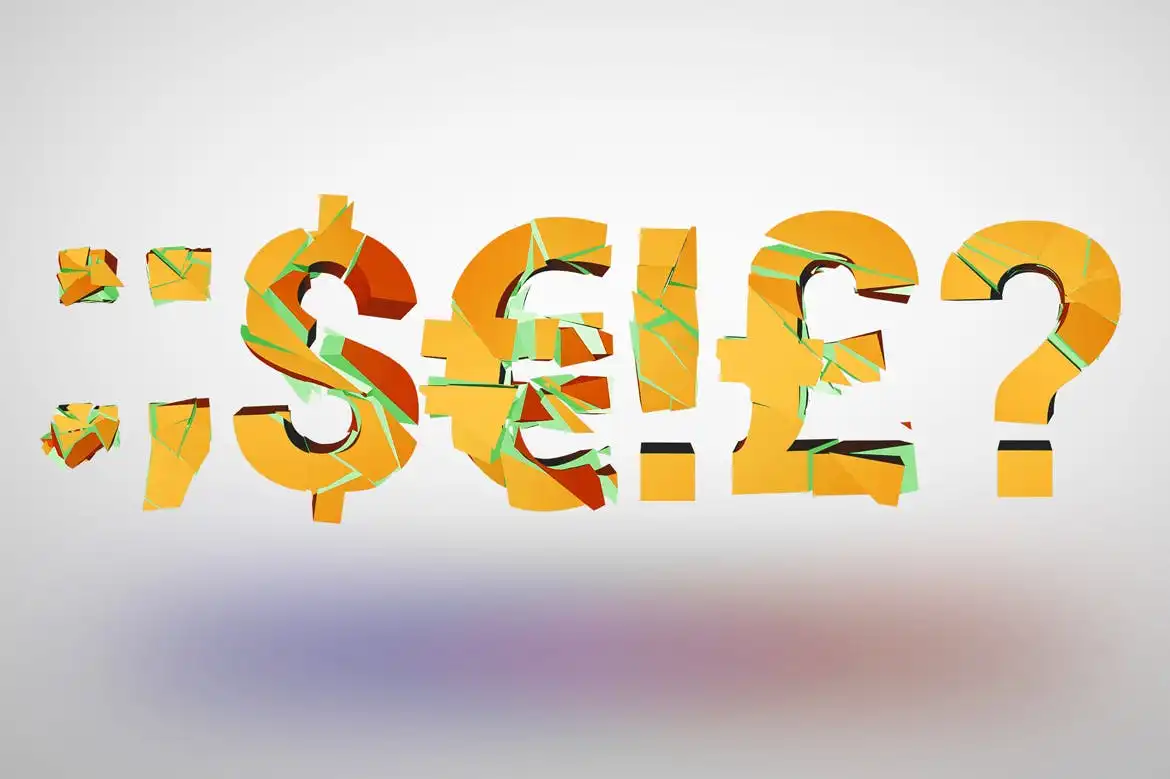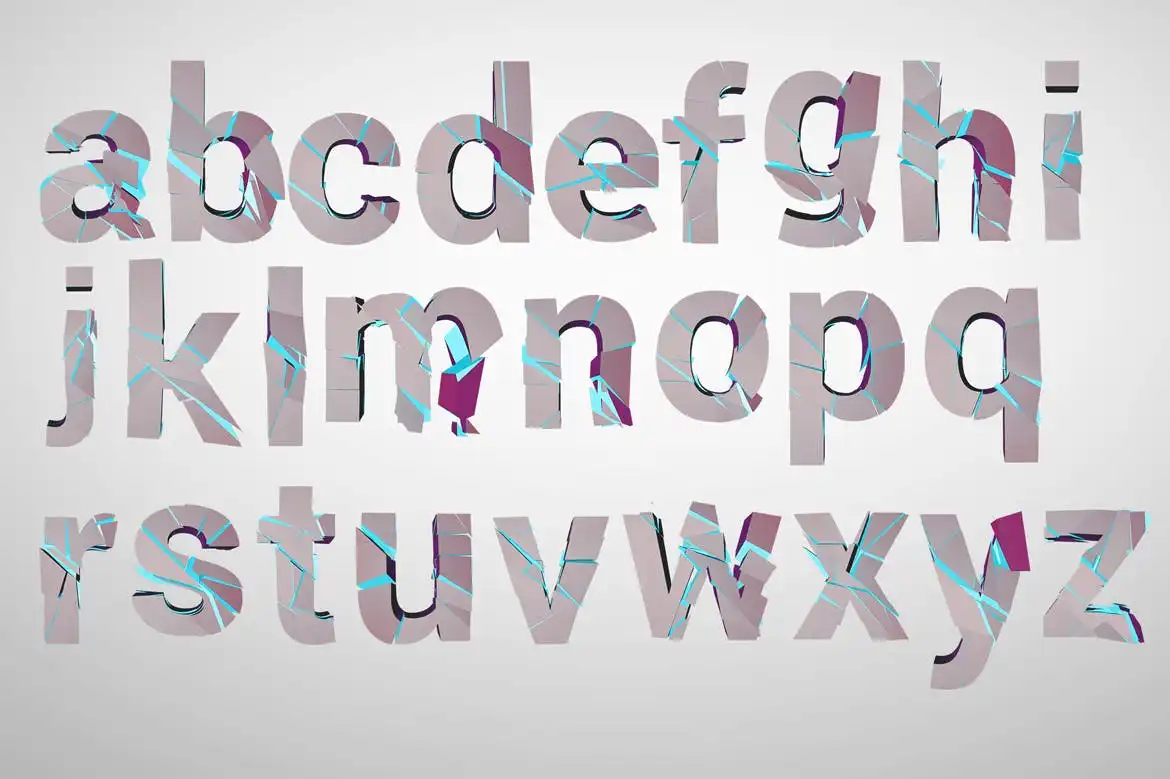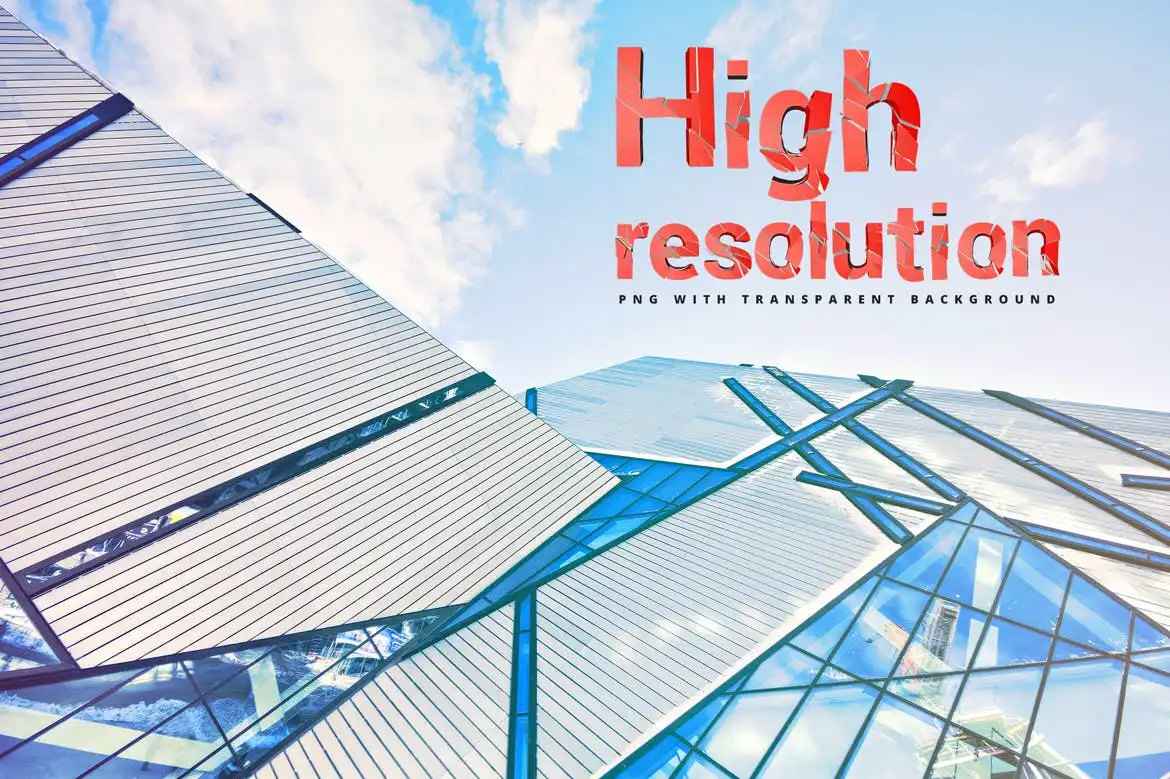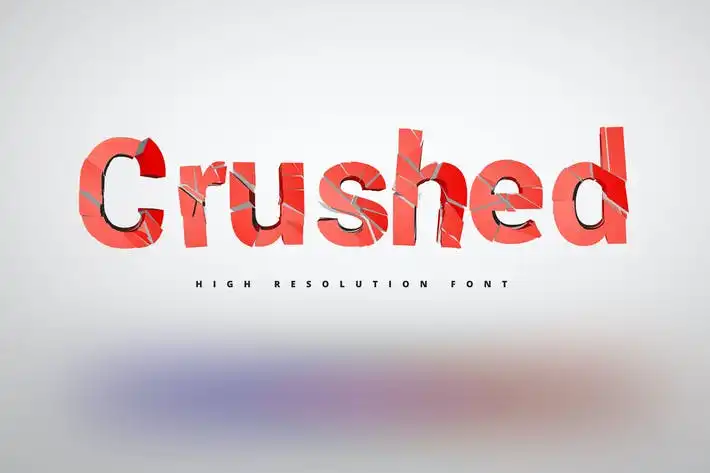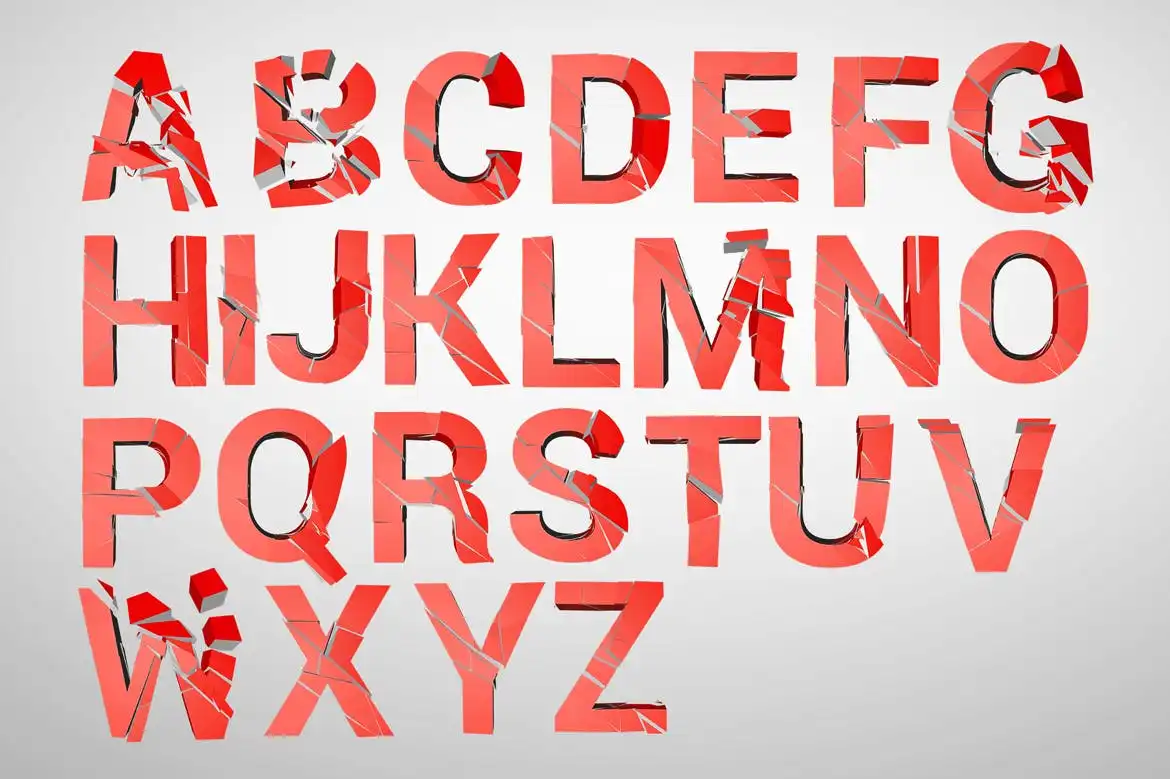
Crushed Font
The Crushed Font is a unique typeface designed to add a distinctive touch to your projects. With its bold and expressive style, this font is perfect for headlines, logos, and any design that requires a strong visual impact.
• Uppercase and lowercase characters
• Numerals and punctuation